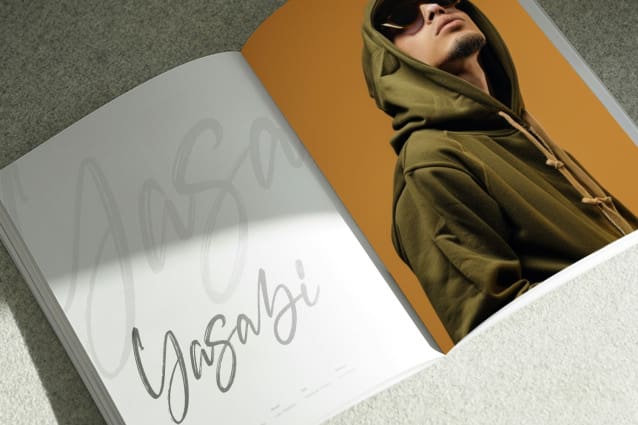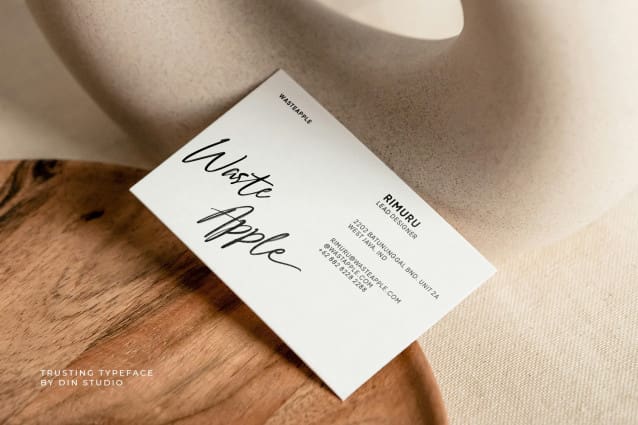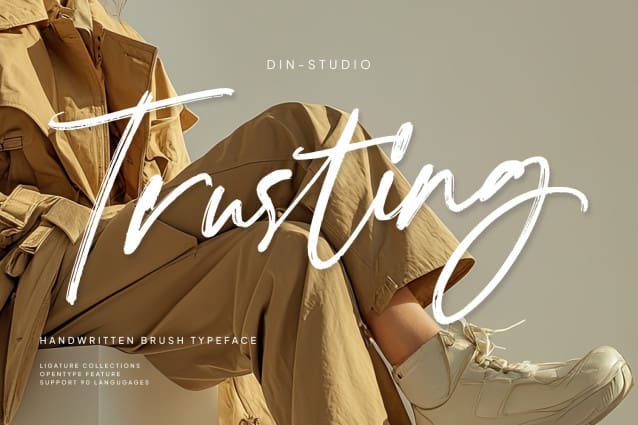
Trusting Brush Font
Trusting Brush Font a beautifully crafted handwritten script font with captivating brush details that command attention. Every stroke is designed to evoke authenticity and charm, making it perfect for adding a personal, artistic touch to your projects. Elevate your designs with this eye-catching font and let its bold, brush-inspired style draw buyers in with every glance.